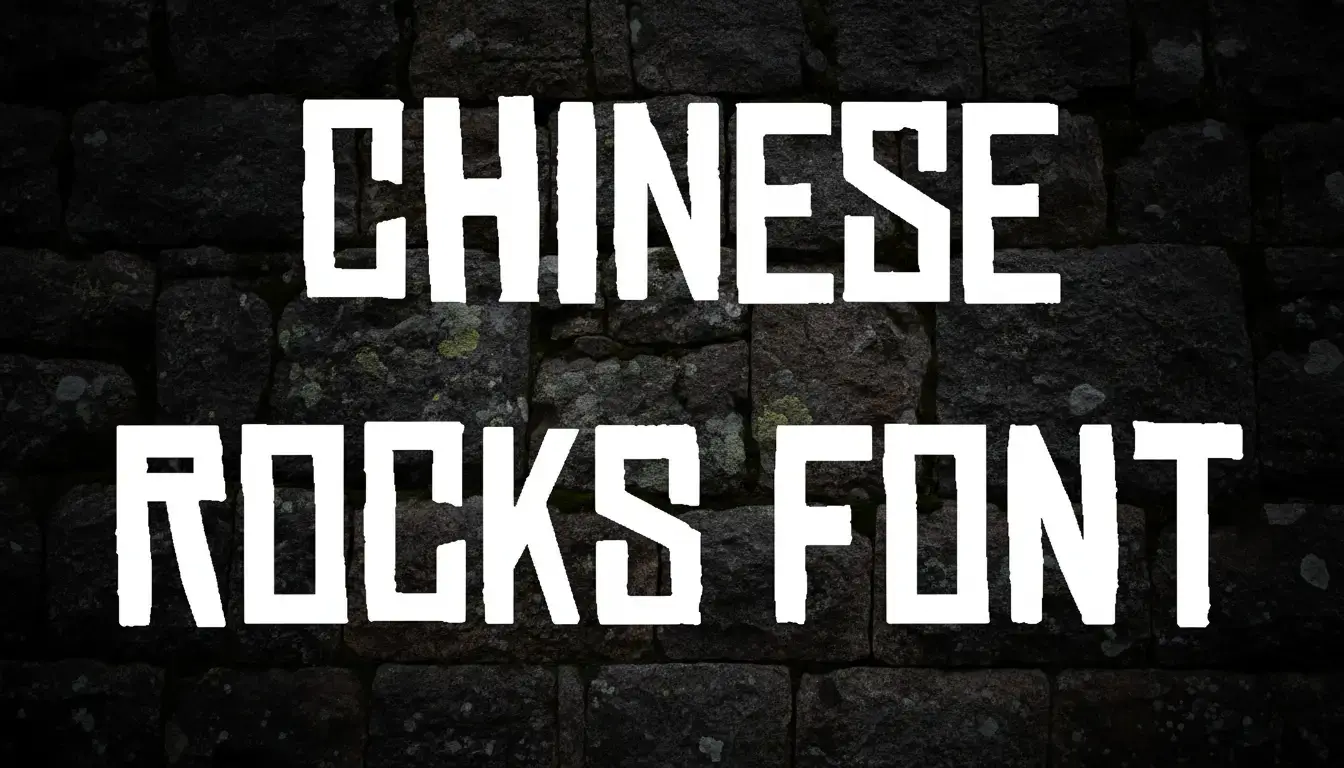
Chinese Rocks Font
Chinese Rocks is a fancy font made by Ray Larabie. It's a decorative display font with plenty of personality, made to grab attention. It's a free download, and you can try it with your own text in the preview above first.
Chinese Rocks covers the full alphabet in upper and lowercase, plus all ten numbers, so you can set names, dates and prices without switching fonts. Everyday marks like &, !, ? and @ are there too. Thanks to its accented letters, it also works for Spanish, French, German, Portuguese and Italian, not just English.
Designers usually reach for fonts like Chinese Rocks when they're making posters, logos and eye-catching headlines. Use it for one standout word or headline and let simpler fonts handle the rest.
Yes. Chinese Rocks includes the accented letters needed for Spanish, French, German, Portuguese and Italian, so it works for more than just English.